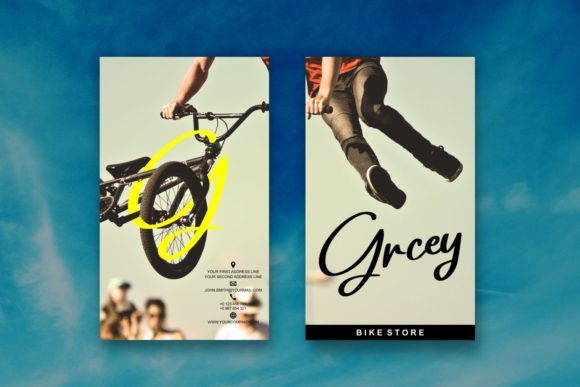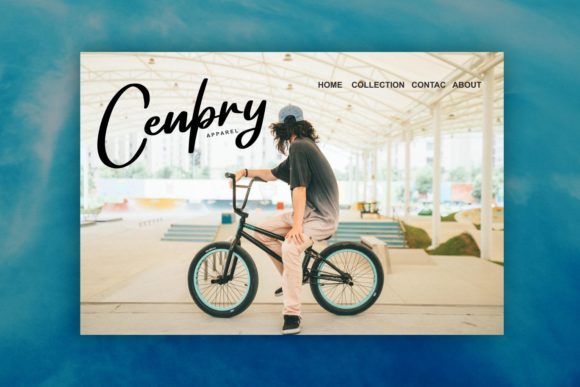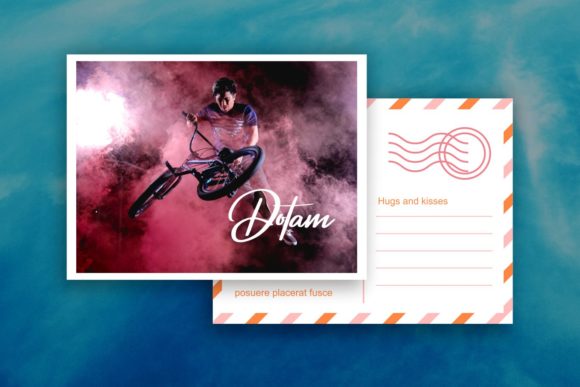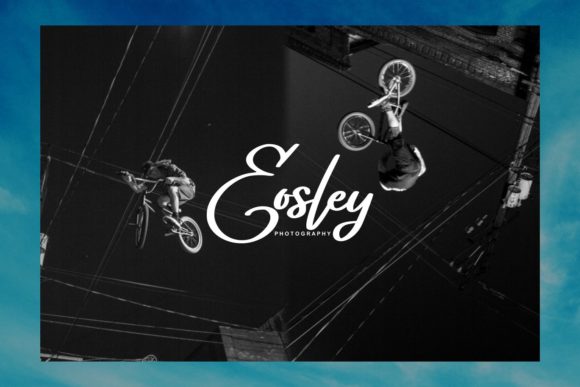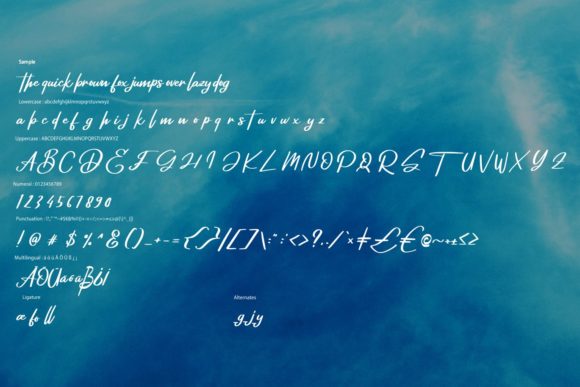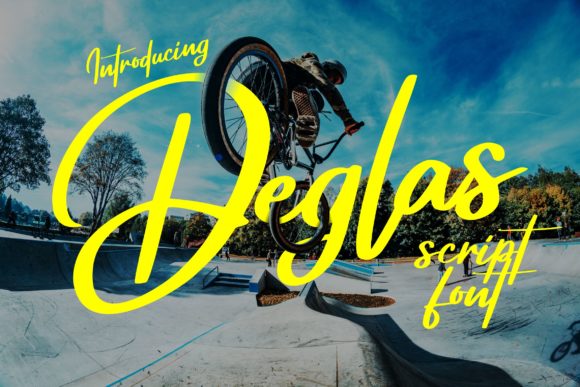
Introducing Deglas Font: A Modern and Fun Script with a Unique Approach to Lettering
In the world of typography, fonts play a crucial role in conveying messages, expressing emotions, and creating visual identities. For designers, crafters, and creative enthusiasts, finding the right font can make all the difference in their projects. If you’re on the lookout for a modern and fun script that adds a touch of personality to your designs, look no further than Deglas Font. In this article, we’ll dive into the world of Deglas, exploring its unique features, and what makes it an excellent choice for your next creative project.
What is Deglas Font?
Deglas is a modern and fun script font that takes a unique approach to lettering. With its distinctive style, Deglas is perfect for designers and crafters looking to add a touch of whimsy and personality to their projects. Whether you’re working on a branding campaign, creating social media graphics, or crafting digital content, Deglas Font is sure to make your designs stand out.
Key Features of Deglas Font
So, what makes Deglas Font so special? Here are some of its key features:
- Unique Lettering Style: Deglas boasts a one-of-a-kind lettering style that’s both modern and playful. Its distinctive approach to typography sets it apart from other script fonts.
- Modern and Fun: Deglas is the perfect blend of modern sophistication and fun, making it ideal for designs that require a touch of personality.
- Highly Versatile: Whether you’re working on a digital project or a print design, Deglas Font adapts seamlessly to different mediums and sizes.
- Easily Readable: Despite its unique style, Deglas remains highly legible, making it perfect for body text and headlines.
Use Cases for Deglas Font
Deglas Font is an incredibly versatile typeface that can be used in a wide range of design projects. Here are some use cases to get you started:
- Branding and Logos: Create a memorable brand identity with Deglas Font. Its unique style makes it perfect for logos, business cards, and letterheads.
- Social Media Graphics: Add a touch of personality to your social media graphics, including Instagram posts, Facebook headers, and Twitter graphics.
- Digital Content: Use Deglas Font to create engaging digital content, such as blog posts, eBooks, and email newsletters.
- Crafting and DIY Projects: Deglas Font is also perfect for crafters and DIY enthusiasts. Use it to create custom signs, labels, and decorations.
Tips for Using Deglas Font
To get the most out of Deglas Font, here are some tips to keep in mind:
- Experiment with Sizes: Deglas Font looks great in various sizes, from large headlines to smaller body text.
- Pair with Other Fonts: Combine Deglas with other fonts to create a unique typography style. Try pairing it with a clean sans-serif font for a striking contrast.
- Play with Colors: Deglas Font comes alive with color. Experiment with different hues and gradients to add depth and personality to your designs.
In conclusion, Deglas Font is an exceptional modern script font that offers a unique approach to lettering. Its blend of modern sophistication and playfulness makes it perfect for designers and crafters looking to add a touch of personality to their projects. With its versatility, readability, and ease of use, Deglas Font is sure to become a staple in your typography collection. So why wait? Give Deglas Font a try today and take your designs to the next level!